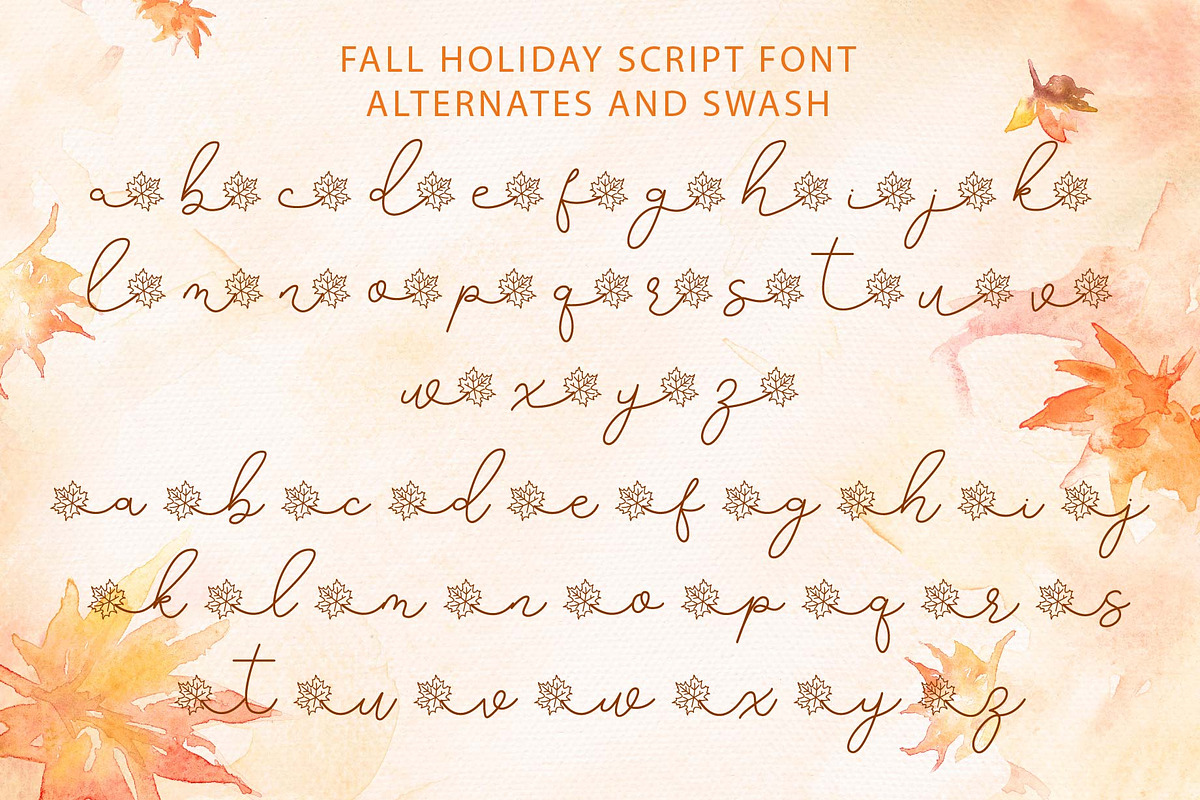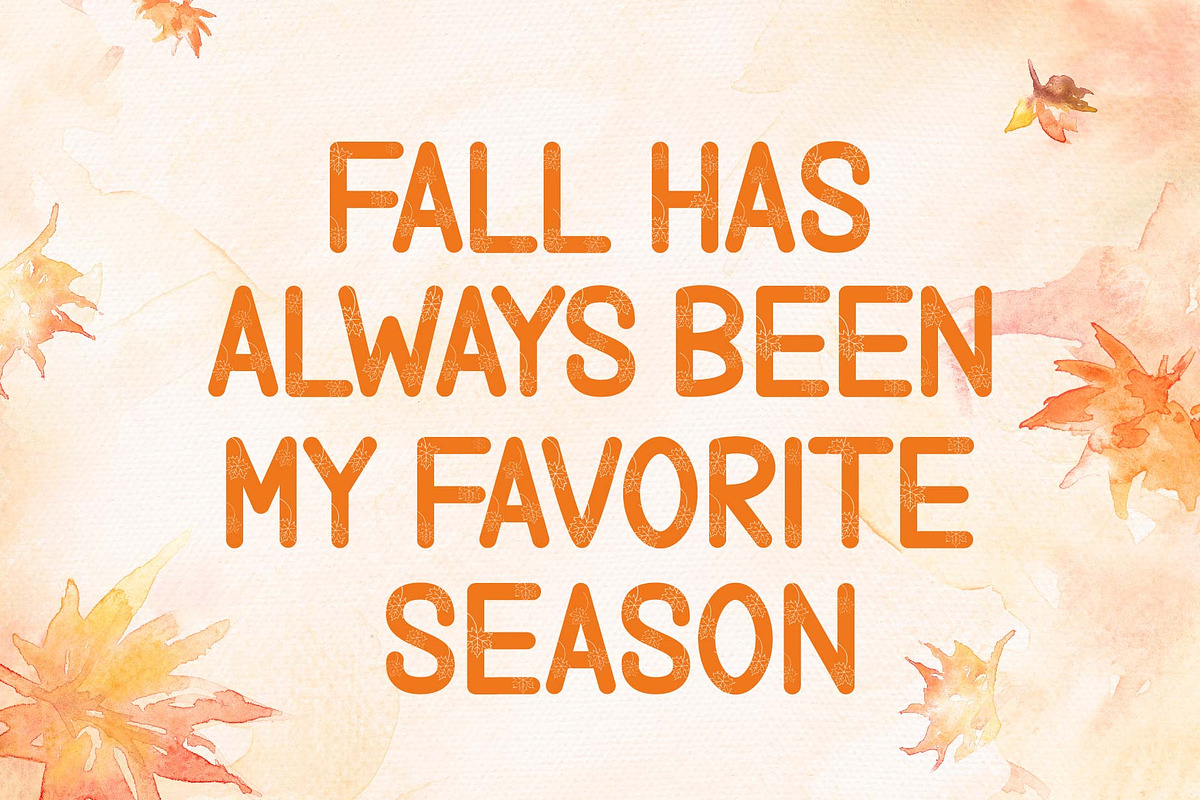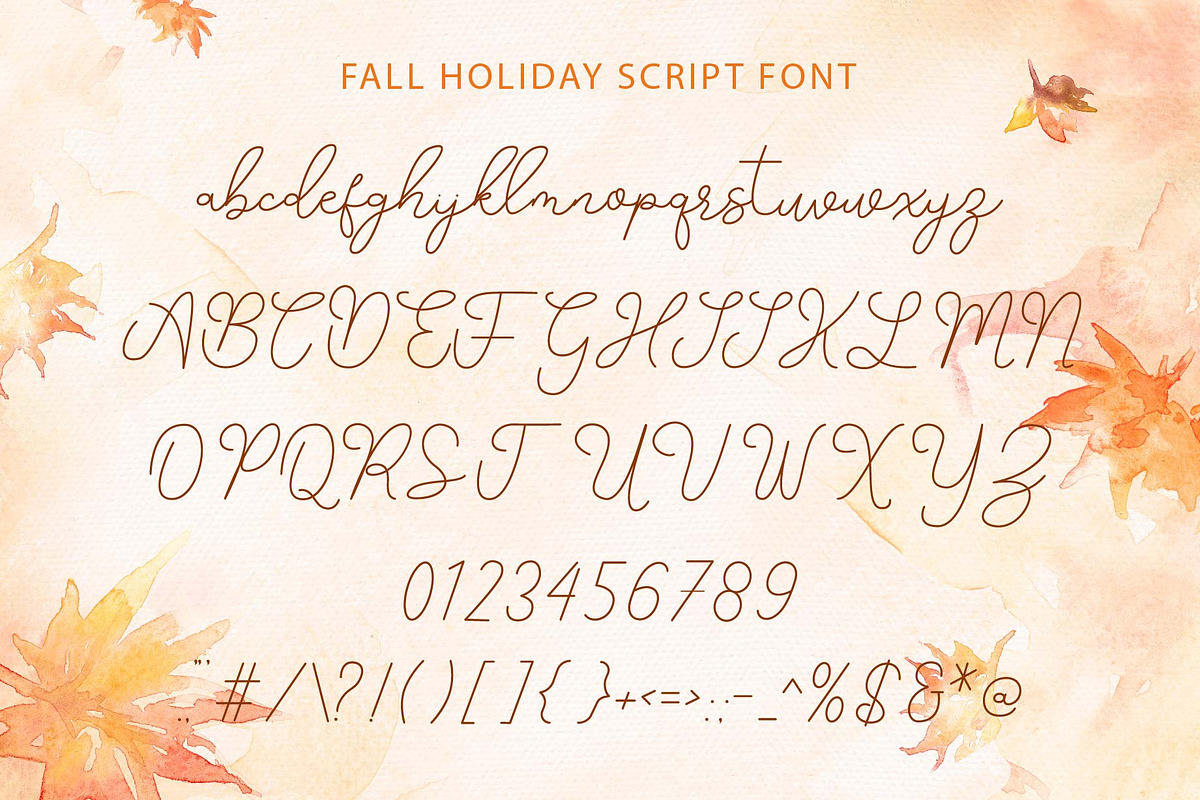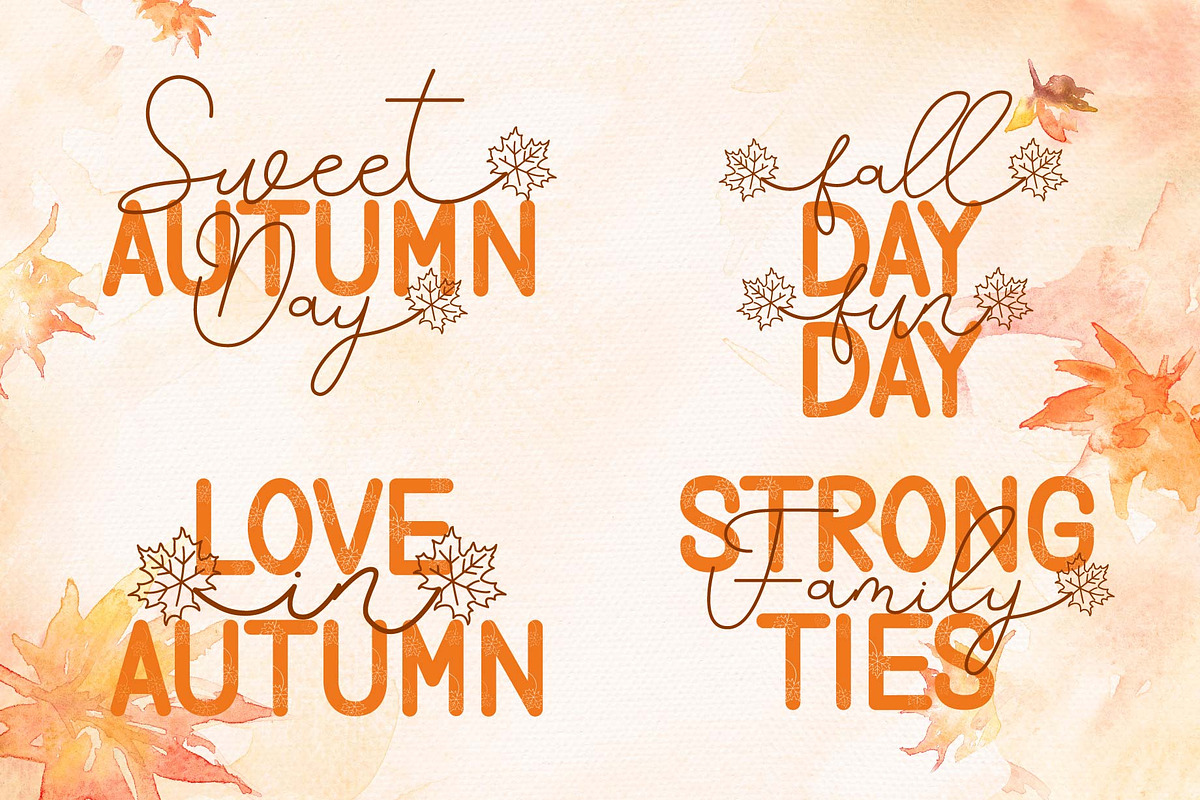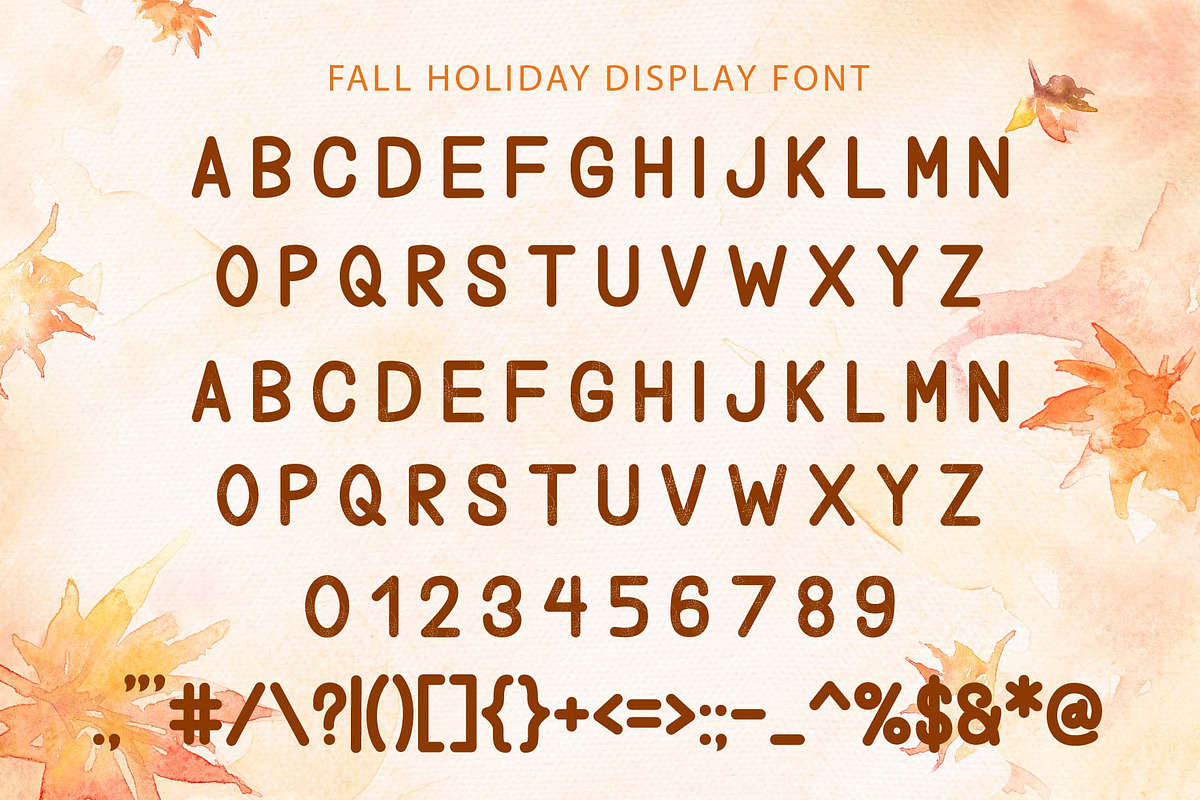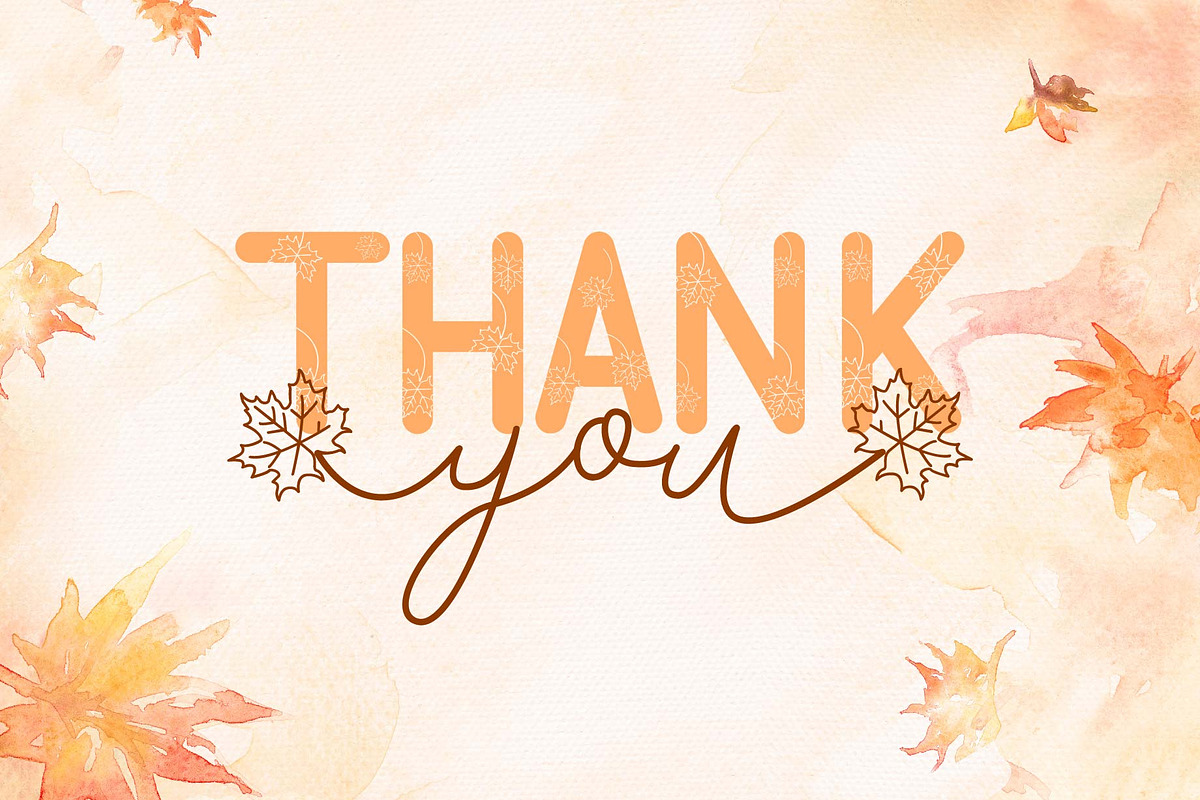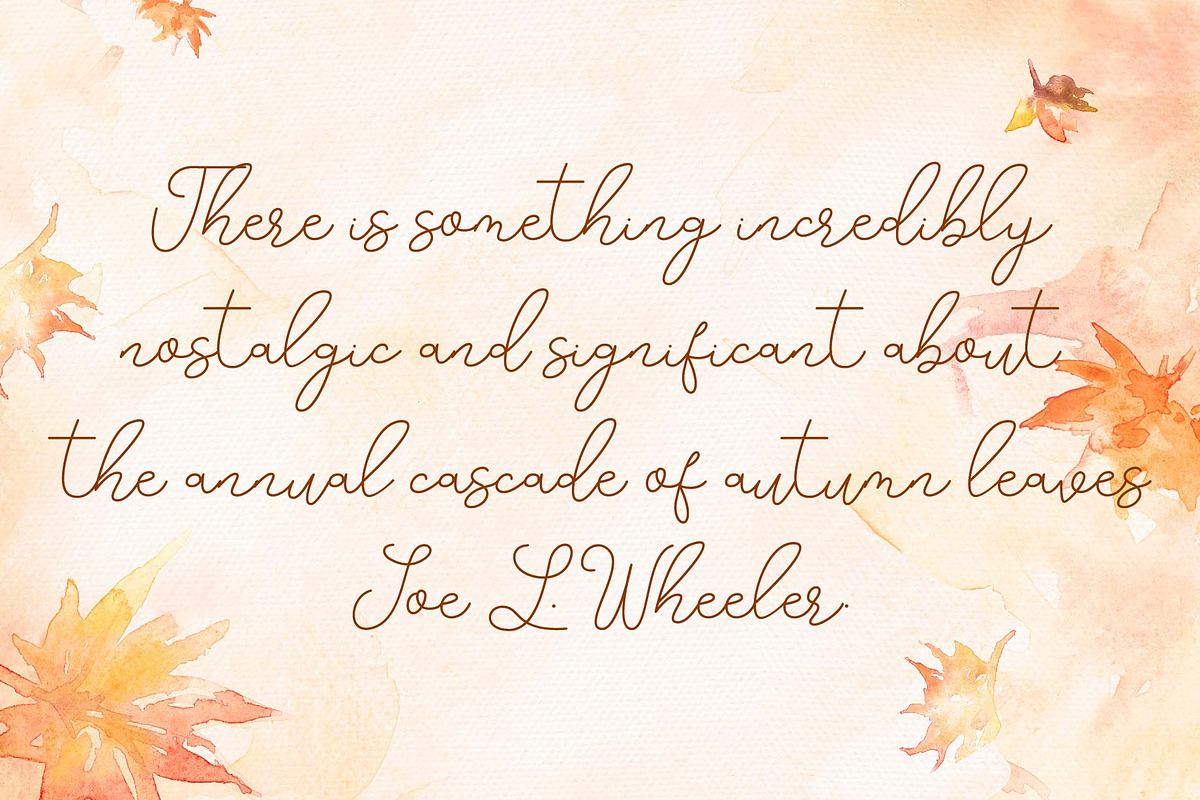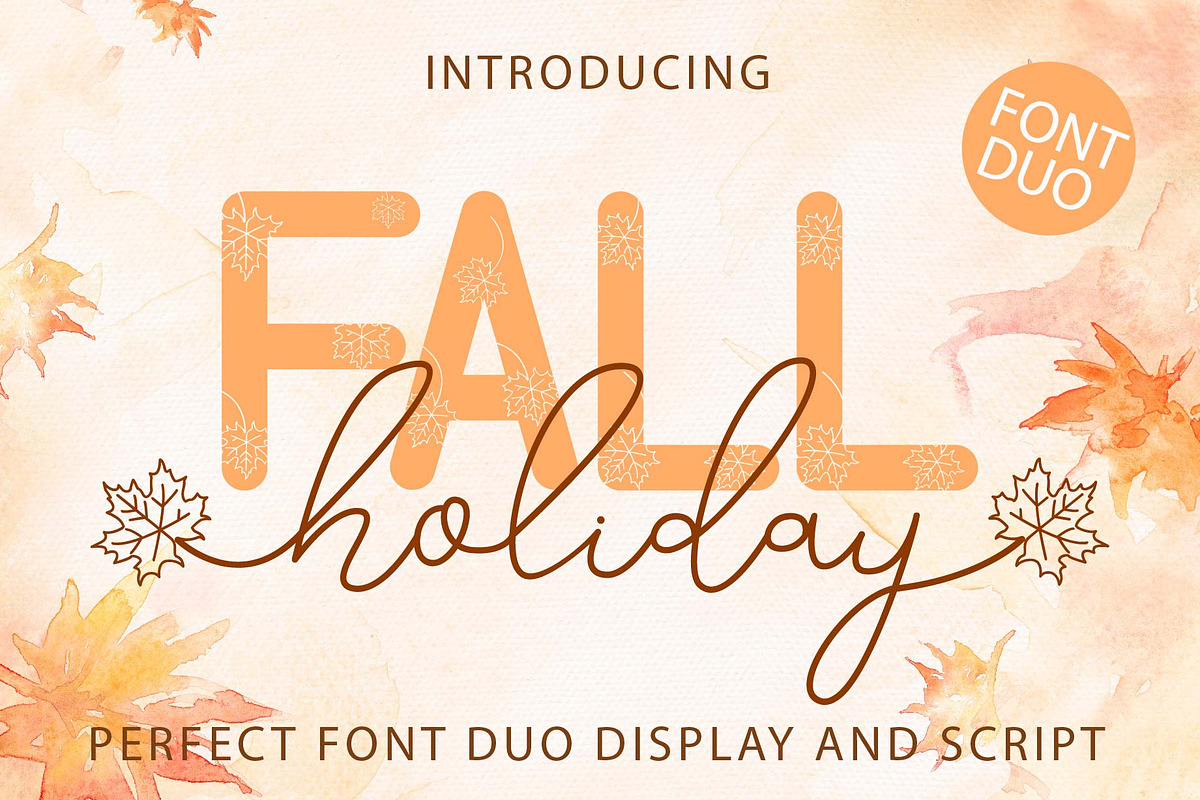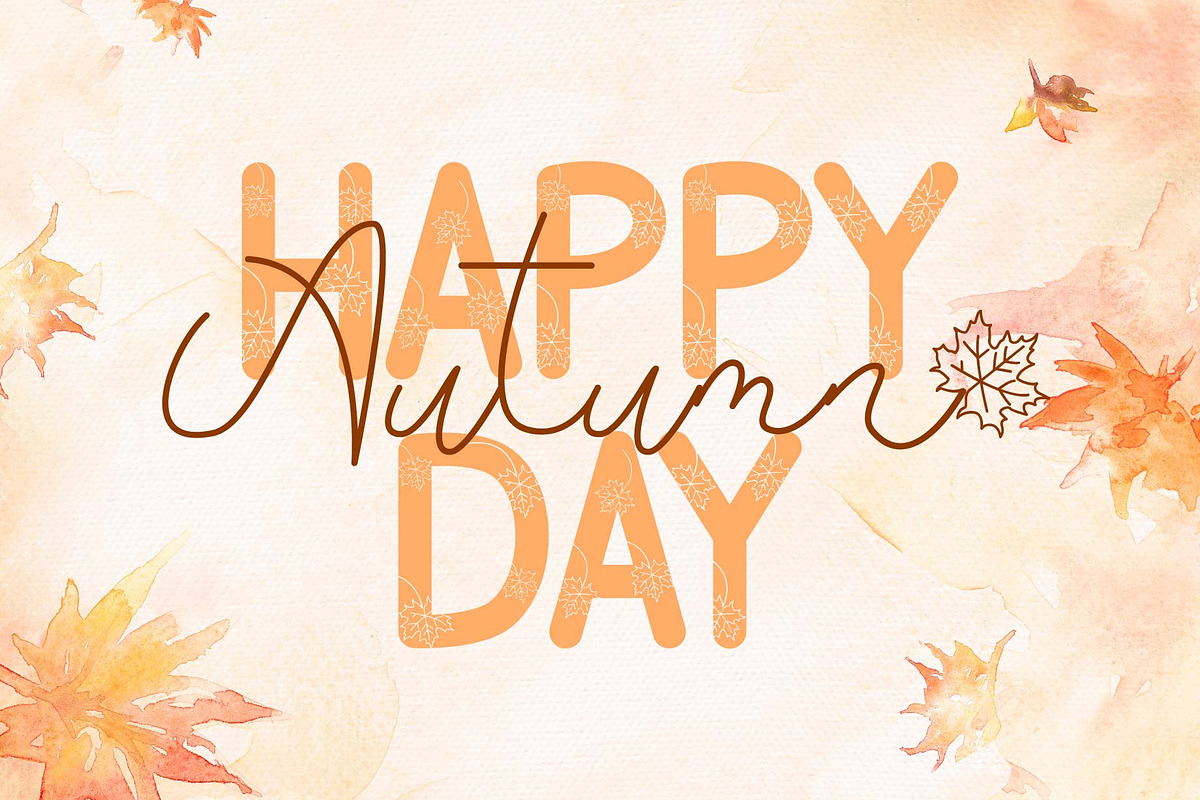
Fall Holiday - Script & Display Font
Fall Holiday is a beautiful and elegant autumn concept font duo with two styles – script and display. This font is inspired by the autumn season, which makes it suitable for adorable and kids’-related products with a cozy, fall theme.